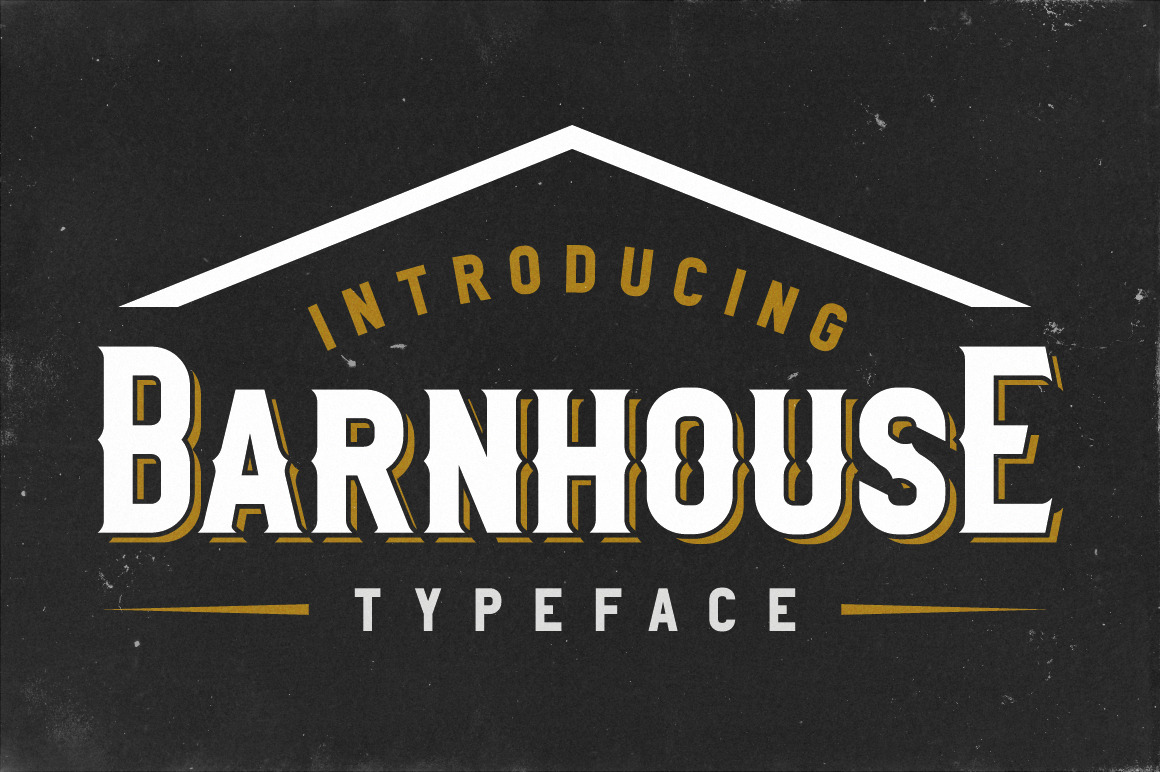
Barnhouse Typeface
Barnhouse typeface is a bold display font, with caps and small caps in four styles of the family. That will gives tough, masculine, also classic looks when using it in artwork.
It contains 194 glyphs character comes with caps, small caps, numeral & punctuation, and standard accented characters.